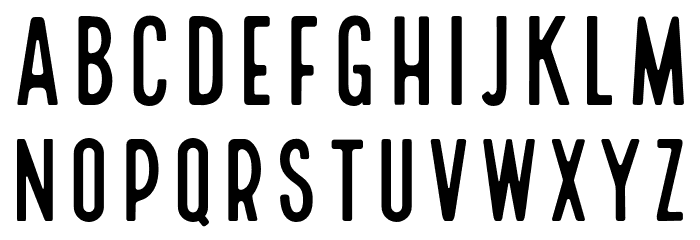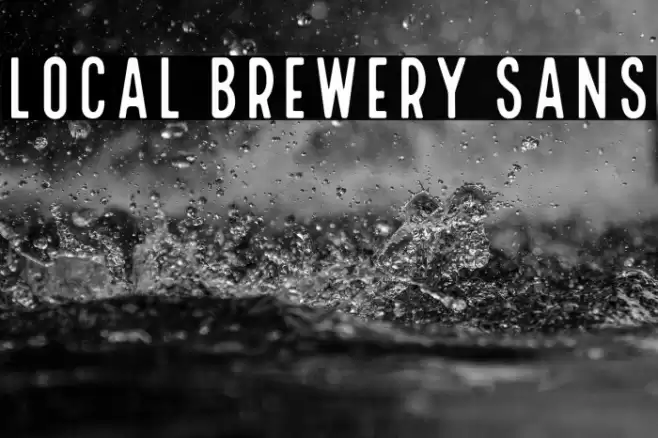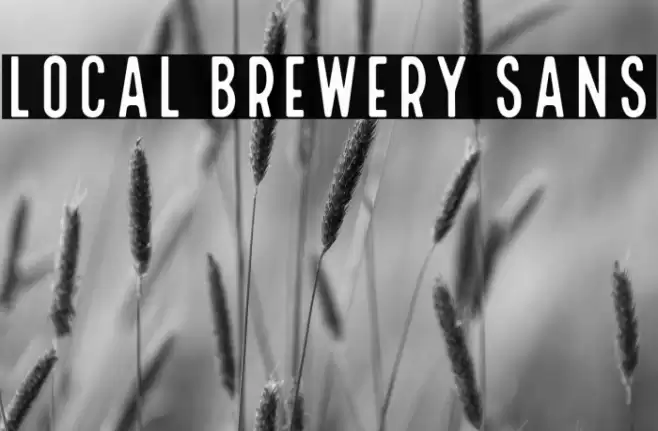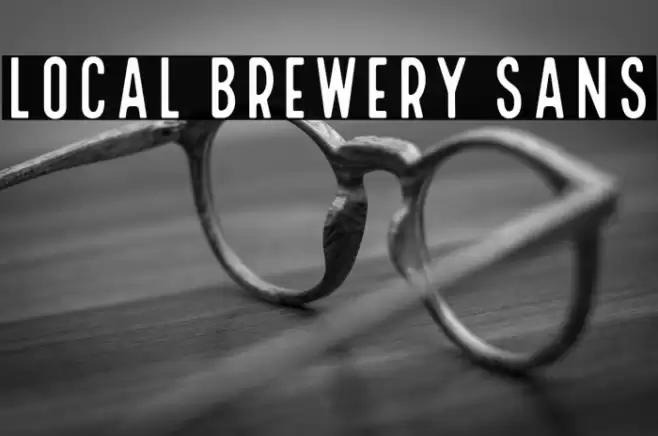
Local Brewery Sans Font
This font features a bold and modern sans-serif style with clean, straight lines and a slightly condensed appearance. The uppercase letters are uniform in height, providing a cohesive look that is both professional and approachable. The strokes are consistent in thickness, offering a medium contrast that enhances readability without sacrificing style. The overall design is sleek and contemporary, making it suitable for a variety of applications. The font's simplicity and clarity make it ideal for branding, signage, and any project that requires a strong visual impact.
A bold, modern sans-serif font with clean lines and medium contrast.
- Font: Local Brewery Sans
- Proposed Projects: Ideal for branding, signage, packaging, and digital media projects.
- Category: Sans-Serif
- Use Case: Headlines, Logos, Branding